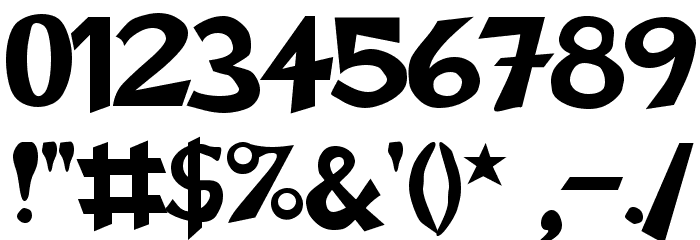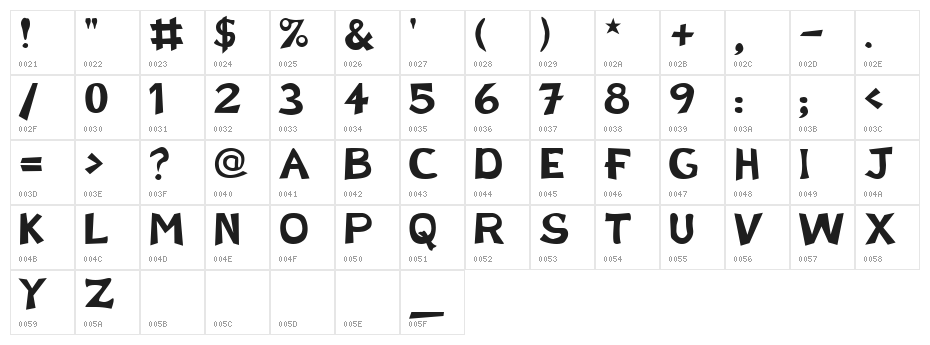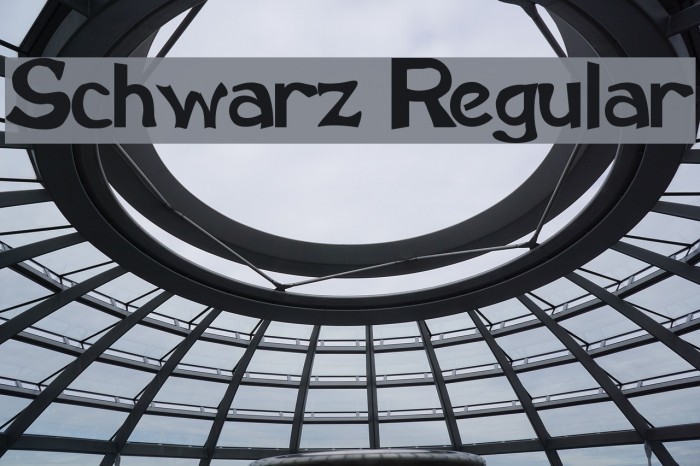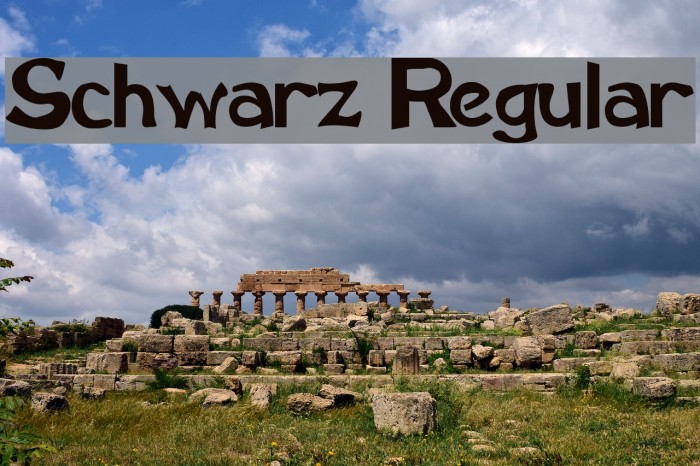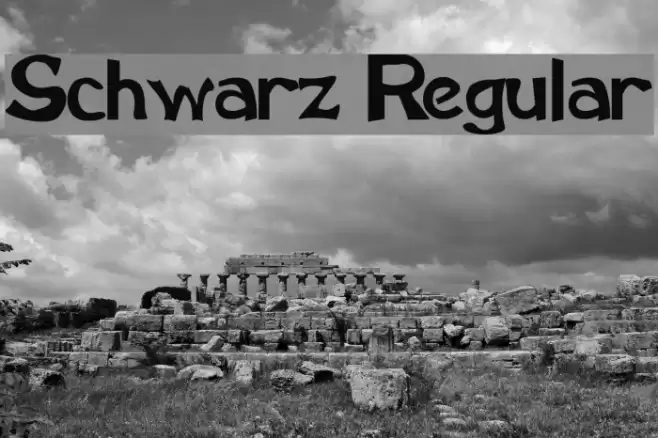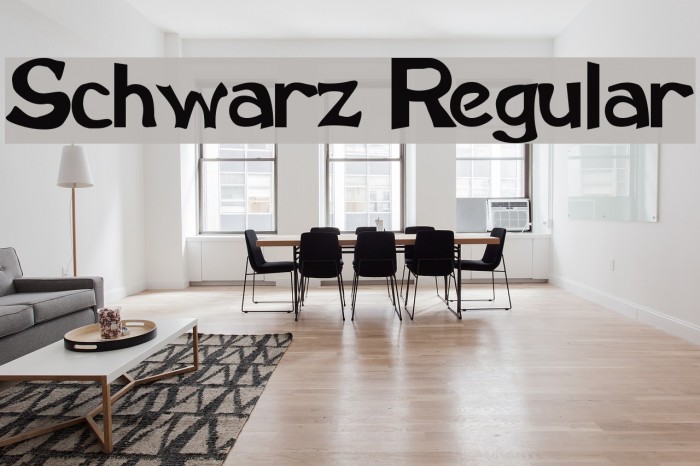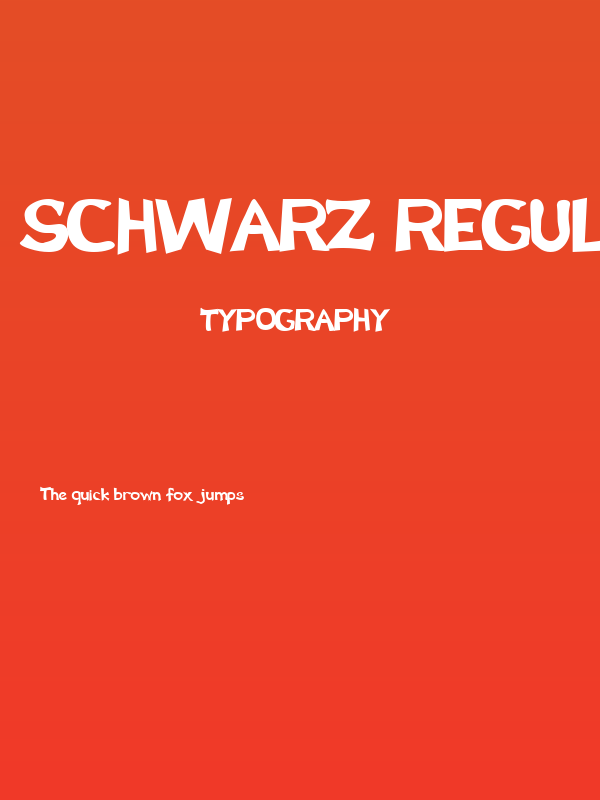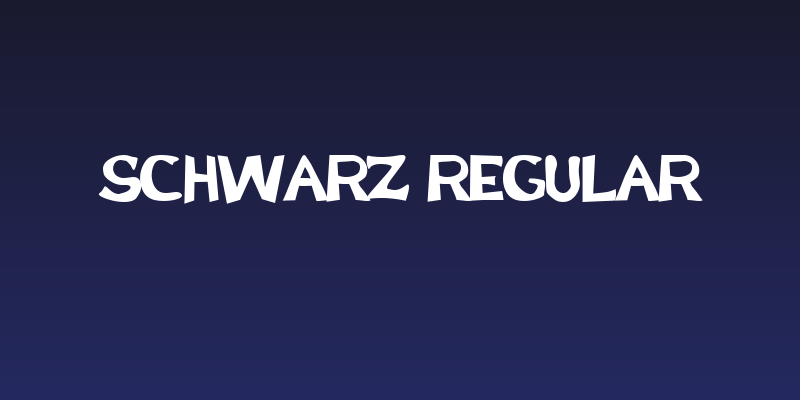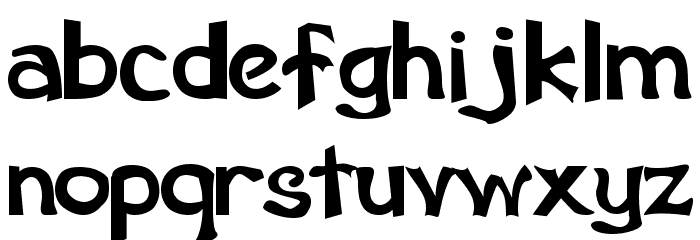
Schwarz Regular Font
Schwarz Regular Description
This font features a bold and dynamic style with a playful yet assertive character. The letters are slightly irregular, giving it a hand-drawn feel while maintaining a strong presence. The uppercase characters are robust and angular, while the lowercase letters exhibit a more rounded and whimsical appearance. Numbers and special characters follow the same bold and lively design, making the font suitable for eye-catching displays. The overall design is cohesive, with a unique flair that stands out in various applications.